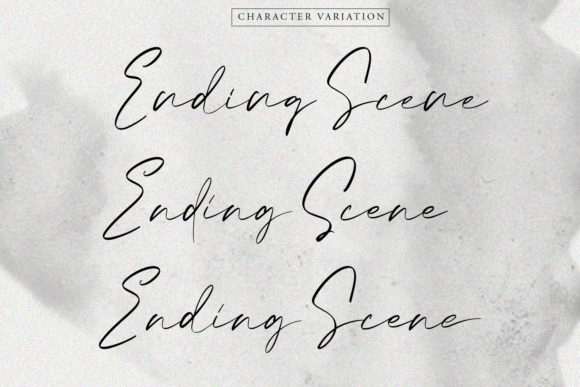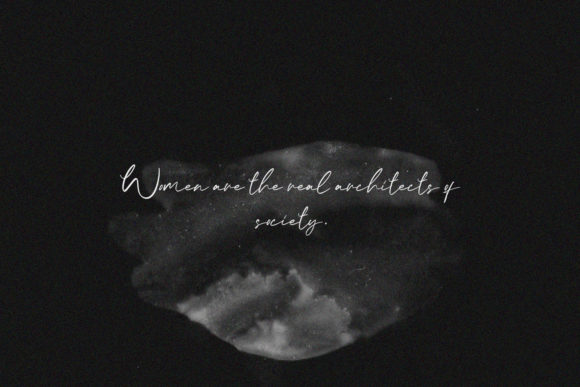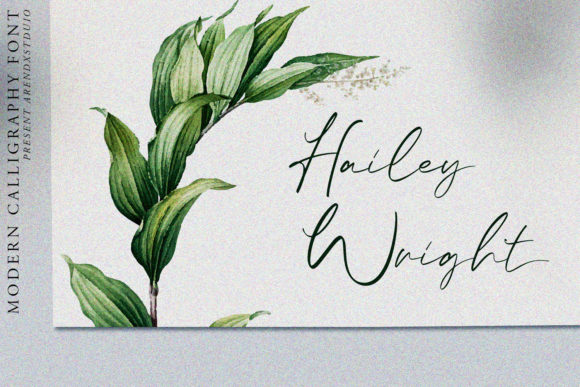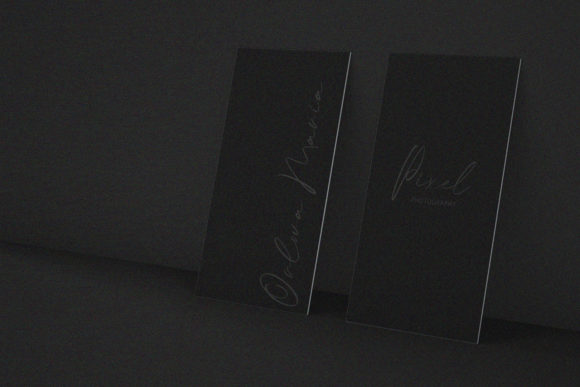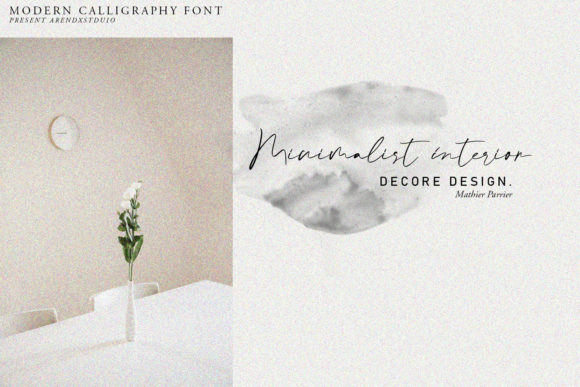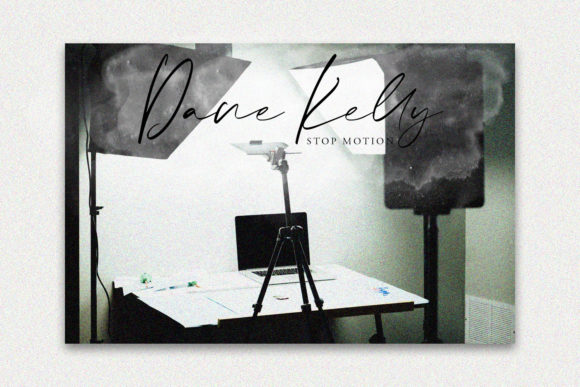
Introducing Ending Scene Font: Elevate Your Designs with Elegance
In the world of design, typography plays a crucial role in conveying messages, evoking emotions, and creating a lasting impression. For crafters, designers, and creative enthusiasts, finding the perfect font can be a daunting task. However, if you’re looking for a magical handwritten font that exudes elegance and sophistication, look no further than Ending Scene Font.
What is Ending Scene Font?
Ending Scene Font is a carefully crafted handwritten font that boasts a touch of elegance, making it perfect for creating original and outstanding designs. This font is designed to add a personal touch to your projects, setting them apart from the rest. Whether you’re working on a branding project, crafting a beautiful wedding invitation, or designing a captivating social media post, Ending Scene Font is the ideal choice.
Key Features of Ending Scene Font
- Magical Handwritten Style: Ending Scene Font features a whimsical, handwritten style that adds a touch of magic to your designs.
- Elegant and Sophisticated: The font’s elegant and sophisticated feel makes it perfect for high-end designs, wedding projects, and luxury brands.
- Highly Versatile: Ending Scene Font can be used for a wide range of design projects, from digital to print, including social media graphics, brochures, and more.
- Easy to Read: Despite its elegant feel, Ending Scene Font remains highly legible, ensuring your message is conveyed clearly.
Use Cases for Ending Scene Font
Ending Scene Font is an incredibly versatile font that can be used in various design projects. Here are some use cases to get you started:
- Wedding and Event Design: Create beautiful wedding invitations, save-the-date cards, and event posters with a personal touch.
- Branding and Packaging: Elevate your brand’s visual identity with Ending Scene Font, perfect for luxury brands, beauty products, and high-end services.
- Social Media Graphics: Add a touch of elegance to your social media posts, stories, and reels with Ending Scene Font.
- Print Design: Use Ending Scene Font in brochures, flyers, and business cards to create a lasting impression.
Tips for Using Ending Scene Font
To get the most out of Ending Scene Font, here are some valuable tips:
- Pair with Neutral Backgrounds: Let Ending Scene Font take center stage by pairing it with neutral backgrounds that won’t compete for attention.
- Experiment with Colors: Try pairing Ending Scene Font with different colors to create unique and eye-catching combinations.
- Use for Headlines and Titles: Ending Scene Font is perfect for headlines and titles, adding a touch of elegance and sophistication to your designs.
In conclusion, Ending Scene Font is a magical handwritten font that can elevate your designs to new heights. With its elegant and sophisticated feel, versatility, and ease of use, it’s perfect for designers, crafters, and creative enthusiasts looking to add a personal touch to their projects. Whether you’re working on a wedding design, branding project, or social media graphic, Ending Scene Font is sure to impress.